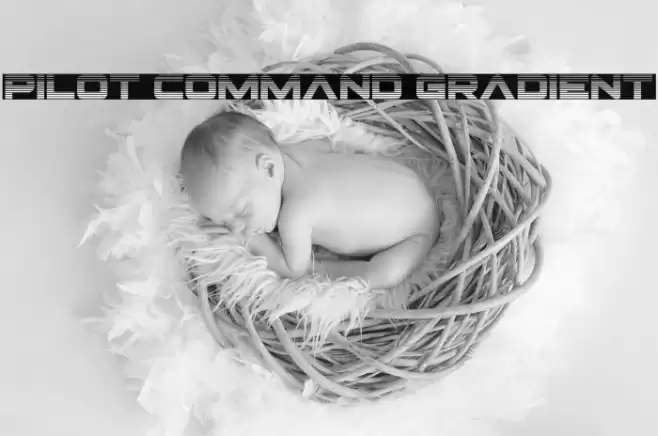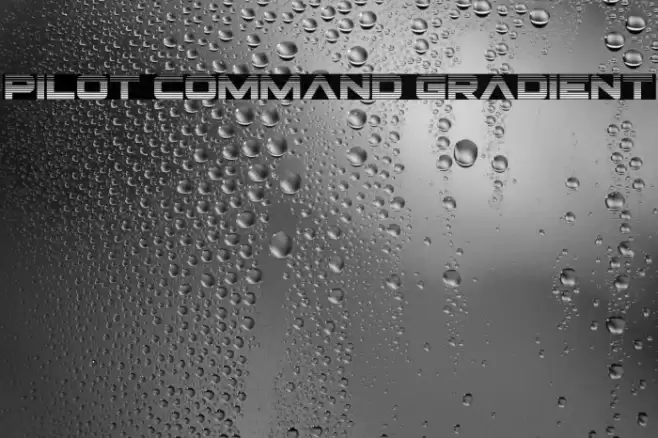
Pilot Command Gradient Font
Pilot Command Gradient Description
This font features a futuristic and dynamic design, characterized by its bold, geometric letterforms. Each character is composed of horizontal lines that create a sense of movement and speed, reminiscent of digital displays or high-tech interfaces. The uppercase and lowercase letters maintain a consistent style, with sharp angles and a uniform width that enhances readability. The numbers and special characters are designed with the same linear pattern, ensuring a cohesive look across all glyphs. This font's unique aesthetic makes it ideal for projects that require a modern and technological feel.
A futuristic, bold font with geometric letterforms and horizontal line patterns from Uncategorized fonts.
- Proposed Projects: Ideal for technology branding, sci-fi themed designs, video game interfaces, and digital art projects.